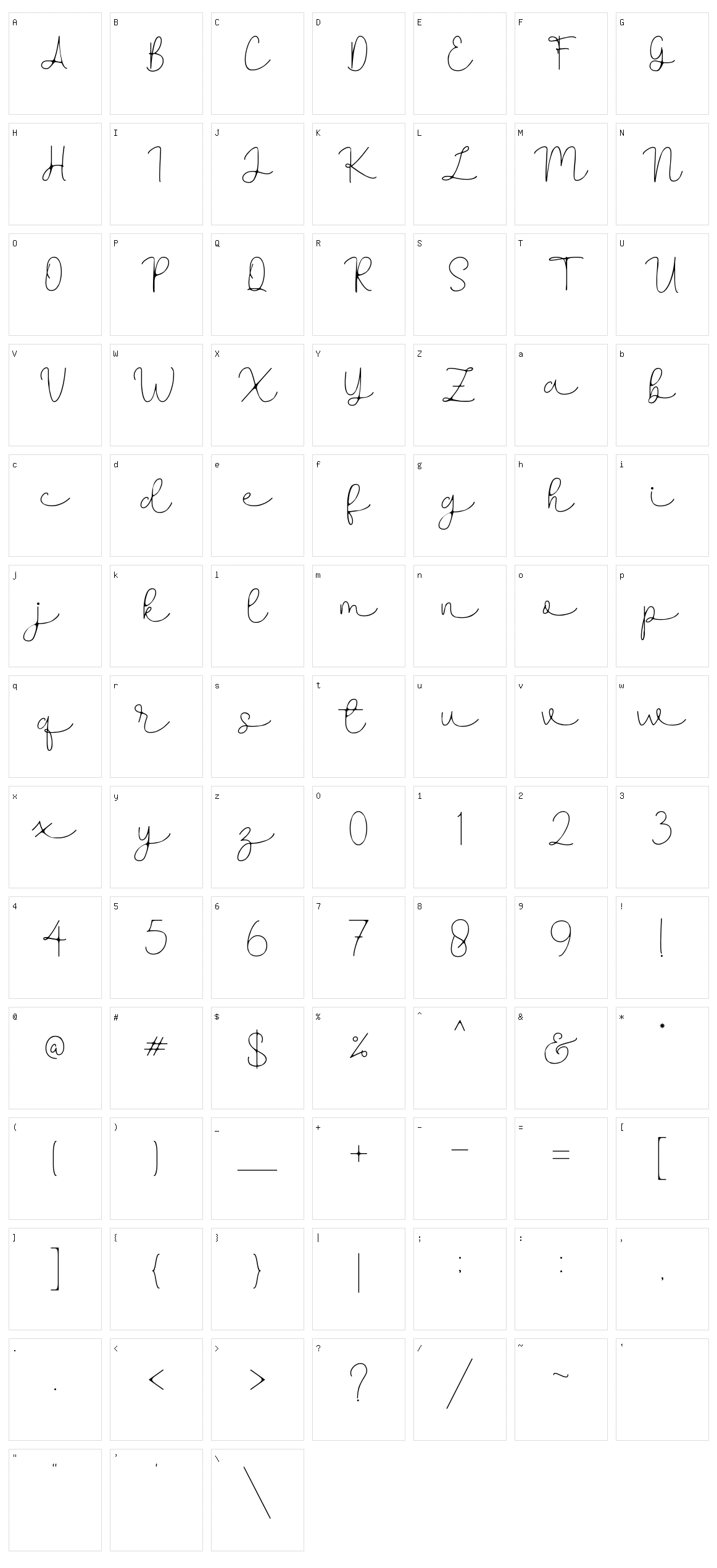
The free font Ramona is carefully designed by JunCreative, showcasing a thoughtful balance of creativity and usability and falls under the Script font style. When you download the ZIP file, it contains only 797.03 KB of font files, making it lightweight and quick to download. Please review the license details below to understand permitted usage and distribution rights. If license information is not available, we recommend using this font for personal projects only or contacting the author directly for commercial usage permissions.